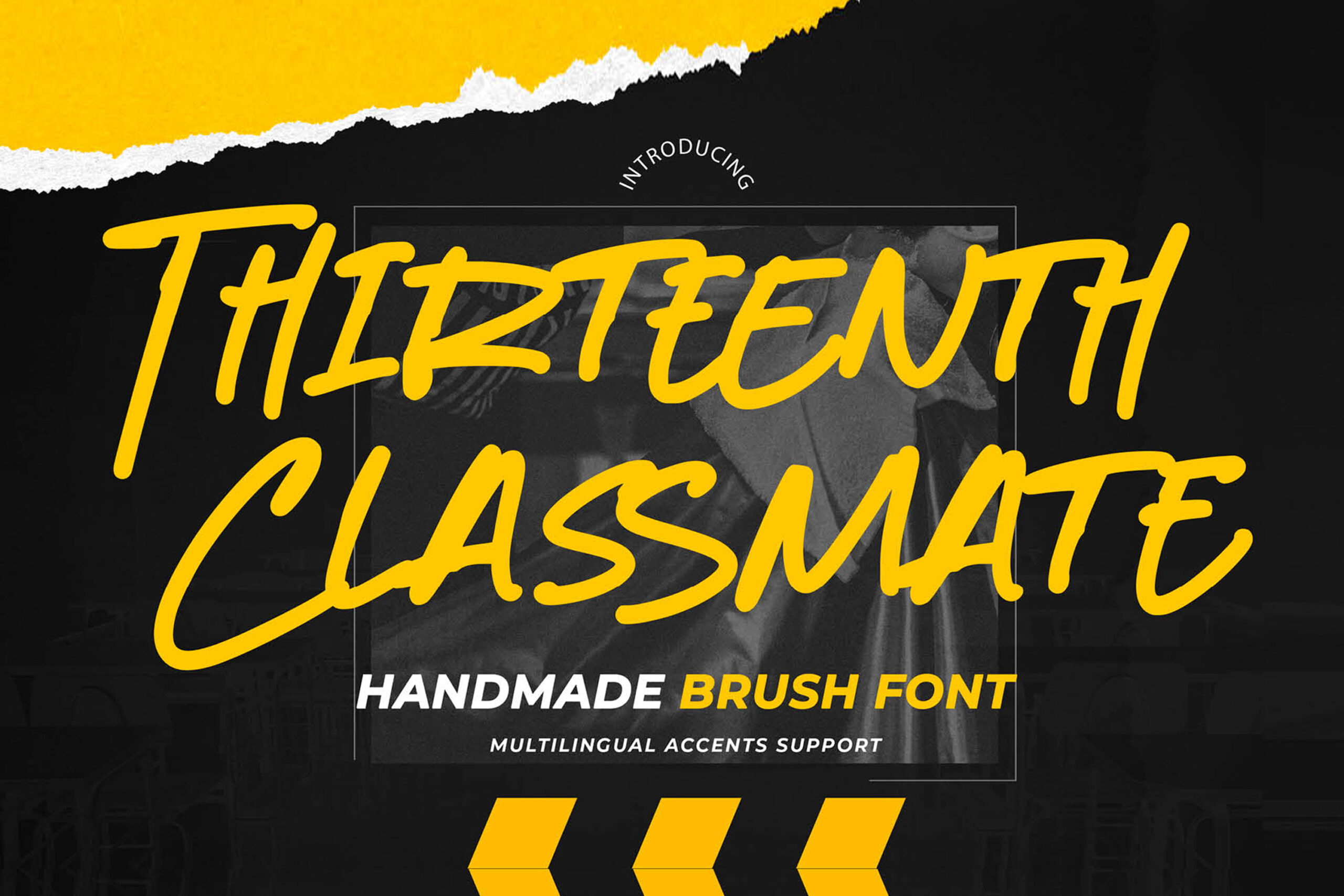
Thirteenth Classmate -Handmade Brush Font ,authentic style and dramatic movement that is written casually and quickly.
The best for poster,project , designs look modern, unique and fun. It’s perfect for labels, quotes, posters, DIY projects, branding, packaging, greeting cards, websites, photography overlays, signs, scrapbooking, tags and so much more! Unique theme very good for sport poster, flyer, childrenbook, cartoon, comic etc. That is why Thirteenth Classmate has a brush , and unique characteristic more natural look. You can activate Ligatures glyphs OpenType panel.